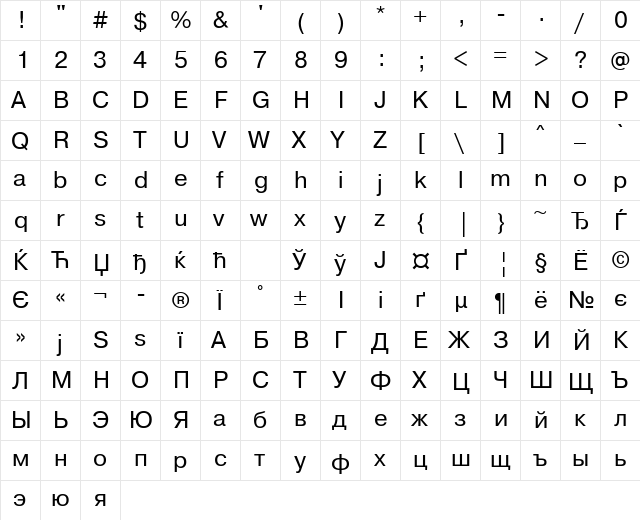
PragmaticaWINCTT Regular
Design Context for PragmaticaWINCTT Typeface
PragmaticaWINCTT offers clean, dependable letterforms without strong stylistic allegiance, making it a practical choice for designers who need flexibility.
Pro Tip: Use PragmaticaWINCTT in both headline and body roles to test its range before committing to a single application.